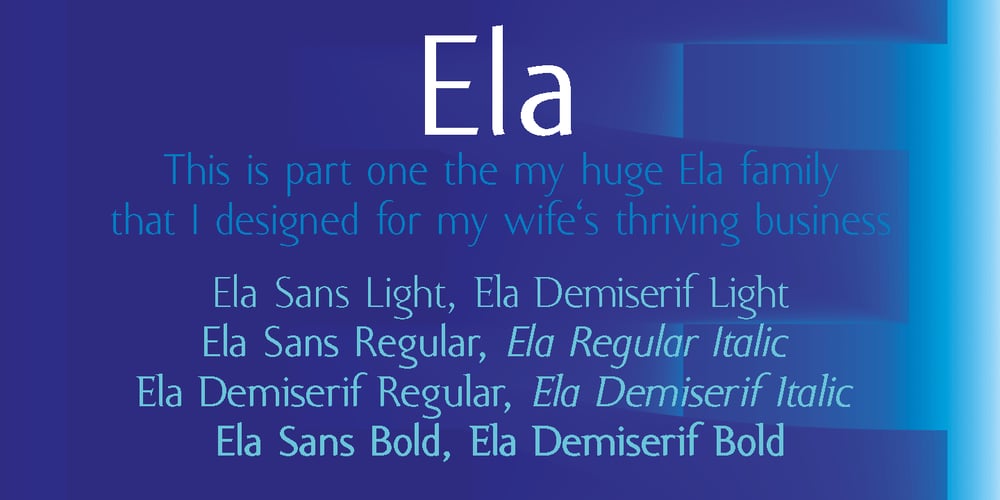
Ela Font Family was designed by Gert Wiescher and published by Wiescher Design. Ela contains 8 styles and family package options. Ela is the typeface I originally designed for the business of my second wife and mother of my two sons, her name is of course Michaela. Ela the typeface is suitable for magazines, newspapers, posters, advertiments, books, text, documentation/business reports, business correspondence, multimedia, and corporate design.